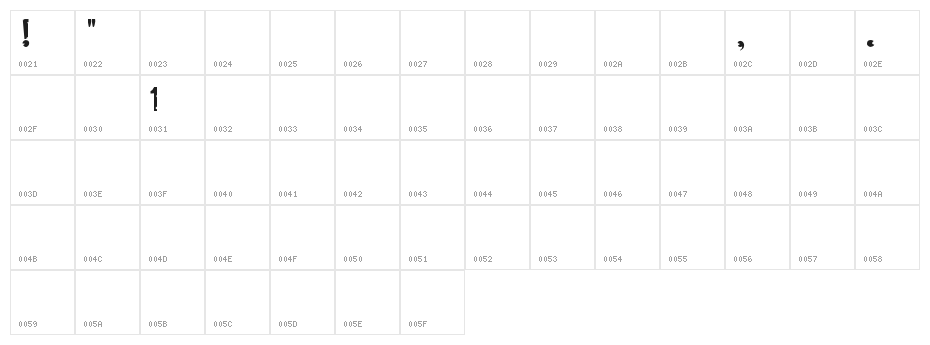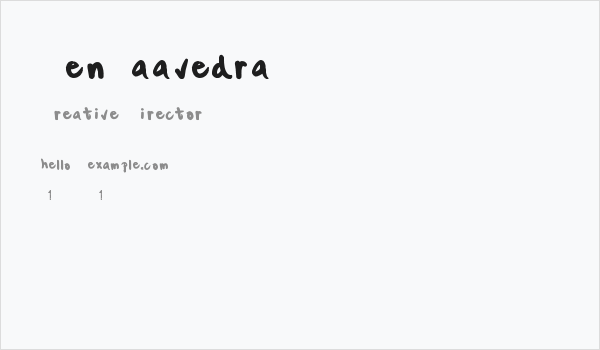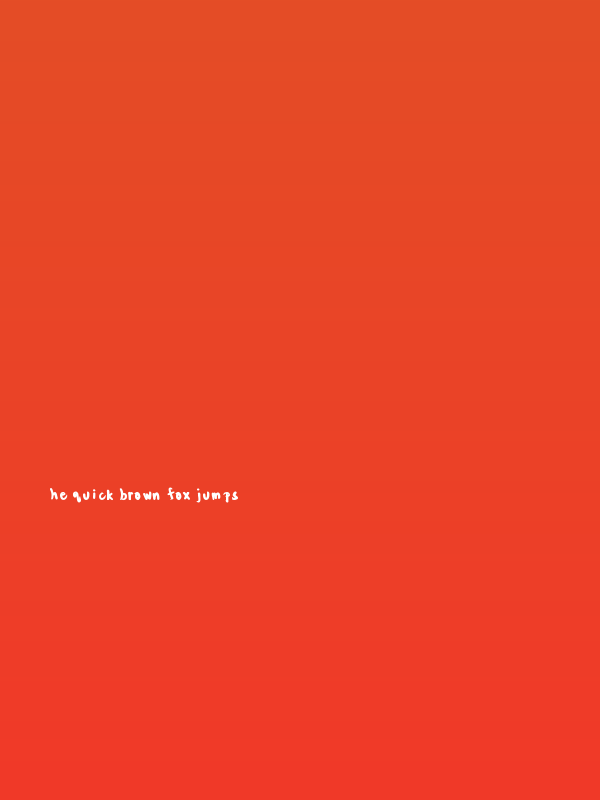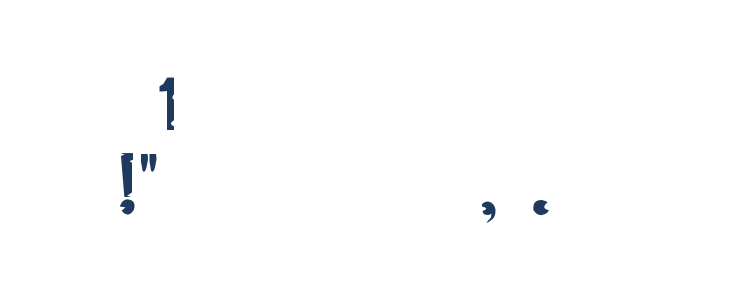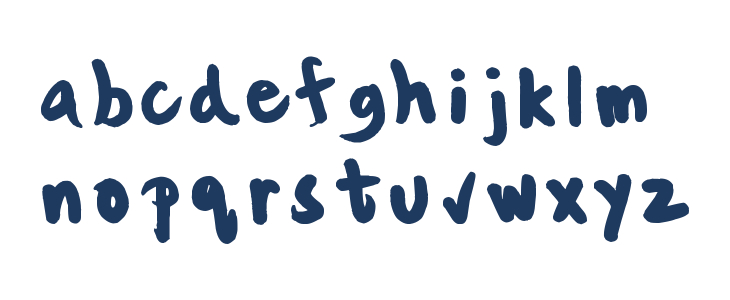
KenSaavedra Font
KenSaavedra Description
This playful and bold font features a handwritten style with a casual and friendly appearance. The characters are rounded and slightly irregular, giving it a whimsical and informal look. The strokes are thick and consistent, contributing to its bold presence. The font's design is reminiscent of a child's handwriting, making it approachable and fun. It lacks uppercase letters and numbers, focusing on lowercase letters and a few punctuation marks. The overall style is informal and lively, suitable for projects that require a personal touch.
| Proposed Projects | Ideal for children's books, playful branding, casual invitations, and creative posters. |